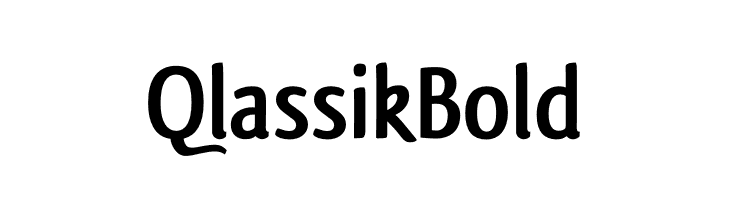
A bold, dynamic font with thick, block-like letterforms and slightly rounded edges.
A bold, geometric outline font with a futuristic and digital style.
A futuristic, geometric outline font with an italic slant.
A bold, semi-italic font with rounded edges and a dynamic style.
A bold, italic font with a modern, dynamic style.
A bold, edgy font with sharp, angular details and a dramatic style.
A bold, playful font with a hand-drawn, whimsical style.
A bold, distressed font with a rugged, grunge style.
A playful, bold script font with a handwritten style.
A bold, gothic-style font with jagged circular outlines for each character.
A bold, jagged, and highly decorative display font with an intense, chaotic style.
A futuristic, geometric font with clean, angular lines and a modern aesthetic.
A futuristic, geometric font with a 3D effect and bold outlines.
A futuristic, 3D geometric font with italicized, angular letterforms.
A bold, geometric font with a futuristic and technical design.
A bold, italicized font with a futuristic and angular design.
A futuristic, italicized font with angular, geometric letterforms.
A bold, narrow font with high contrast and tight spacing, perfect for impactful headlines.
A bold, brush-style font with a hand-drawn, textured appearance.
A bold, structured serif font with a modern twist, ideal for impactful designs.
A bold, italic serif font with a modern, dynamic style.
A bold, serif font with strong strokes and sharp serifs, ideal for impactful designs.
Elegant italic font with moderate contrast and strong presence.
A narrow, elongated serif font with strong vertical emphasis and sharp serifs.
A narrow, italicized font with medium contrast and a modern style.
A modern, elegant font with thin, elongated strokes and slight serifs.
A thin, italicized font with elegant, elongated characters and moderate contrast.
A bold, playful font with a handcrafted appearance and thick strokes.
A whimsical, hand-drawn style font with artistic flair.